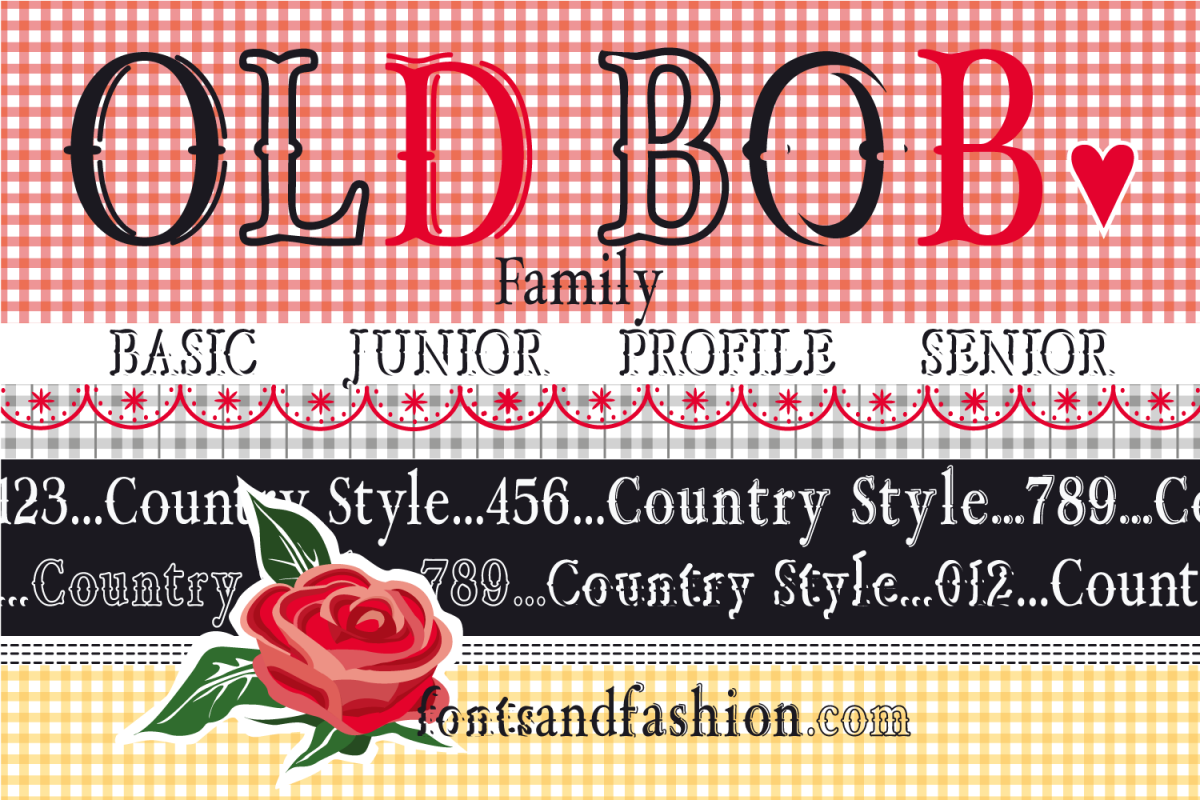
OLD BOB FAMILY
OLD BOB... This is a family of fonts that looks a little Western, a little circus and a little country!!! It reminds us a lot of the circus and the West, but it is also perfectly country-style... If used in a delicate and graceful way, you can create images like “HOME SWEET HOME”. It's a font that can be used in many types of expressive contextes while allowing a great creative freedom. This pack is available in four different styles (normal, junior, profile, senior). Each type, if used singularly, will be enough for you to create interesting graphic arrangements...but , if used together, they will be able to express their full potential, giving life to unusual effects and fully representing your most innovative ideas for your projects. For sure the help you will get in creating such a wide range of graphics will make you satisfied of your choice in buying this amazing family of fonts!
Is a family of 4 different fonts.
"OLD BOB FAMILY" is available in four different styles, the pack includes:
- OLD BOB BASIC -
- OLD BOB PROFILE -
- OLD BOB JUNIOR -
- OLD BOB SENIOR -